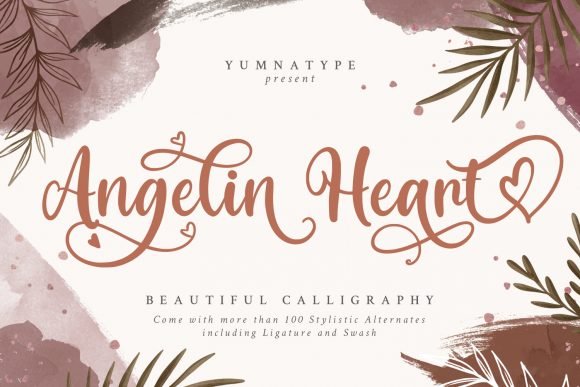
Do you remember that moment when you finally found the perfect font for your design project? The one that makes your words stand out, elevates your message, and leaves a lasting impression? For designers, finding the right font can be a game-changer, and that’s exactly what the Angelin Heart Font is designed to do.
This refined script font boasts a contemporary atmosphere and spotless form, making it the perfect addition to any project. With its balanced and varied design, the Angelin Heart Font is not too thin and not too thick, ensuring that your text is always readable and visually appealing. Plus, its PUA encoding allows for easy access to all glyphs and swashes, giving you complete creative control.
Angelina Heart Font Key Features
- Font Family: Angelina Heart Font is a unique, handwritten script font designed to add a touch of elegance and sophistication to your designs.
- Character Count: The font includes a wide range of characters, including uppercase and lowercase letters, numbers, punctuation marks, and special characters.
- Unique Characteristics: The Angelina Heart Font features beautiful, flowing lines and subtle flourishes that give it a romantic and whimsical feel.
Designer Review: Angelin Heart Font
Overall, I think the Angelin Heart Font is a beautifully designed typeface that excels in certain areas, but falls short in others.
- The whimsical and romantic feel of this font is perfect for projects that need a touch of elegance and sophistication.
- The ligatures and swashes are a great addition, adding a personal touch to any text that uses this font.
- The font’s script style makes it ideal for invitations, wedding stationery, and other formal events.
- The font’s weight and size limitations can make it difficult to use in larger or smaller text sizes.
- The font’s readability can suffer at smaller sizes or in low-light environments.
- The font’s lack of bold weight can make it difficult to use for headlines or titles.
Overall, the Angelin Heart Font is a beautiful typeface that excels in certain areas, but falls short in others. While it’s perfect for formal events and projects that need a touch of elegance, its limitations make it less versatile than other fonts.
Tips for Getting the Most Out of Angelin Heart Font
Use Angelin Heart Font for titles, headings, and other attention-grabbing text elements.
Pair it with a simple, elegant background to make the text stand out.
Branding and marketing materials
Editorial and creative content